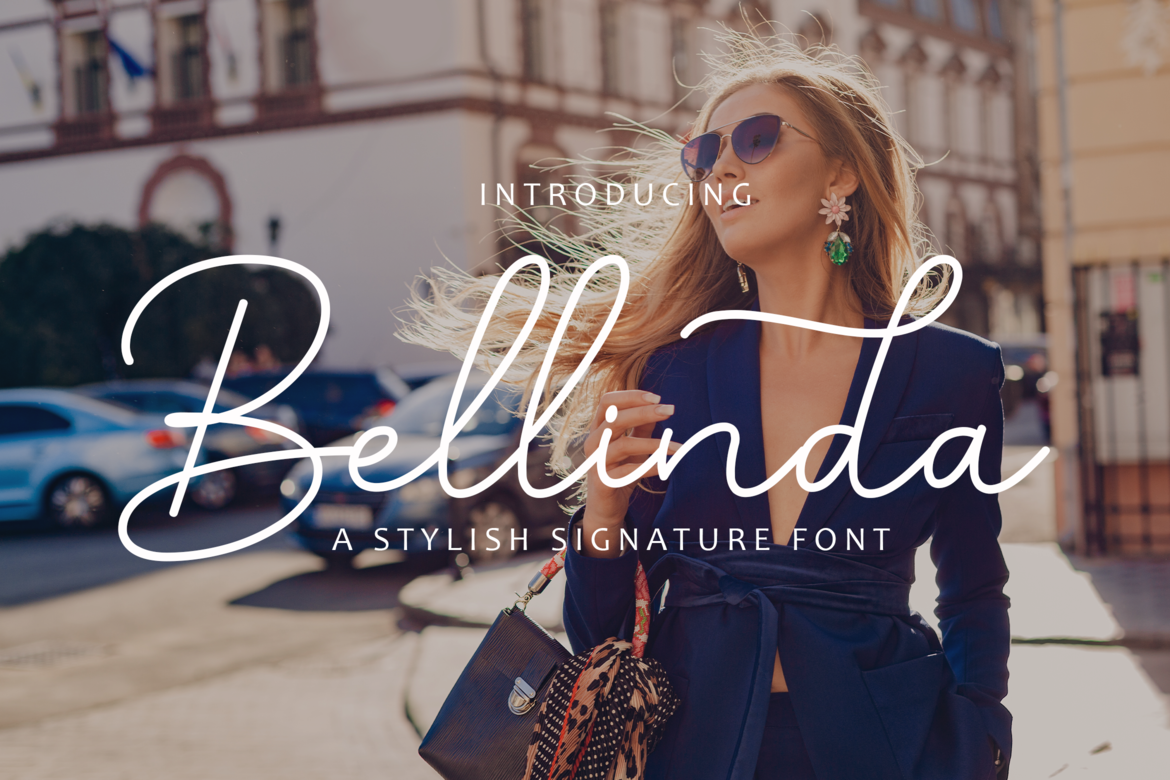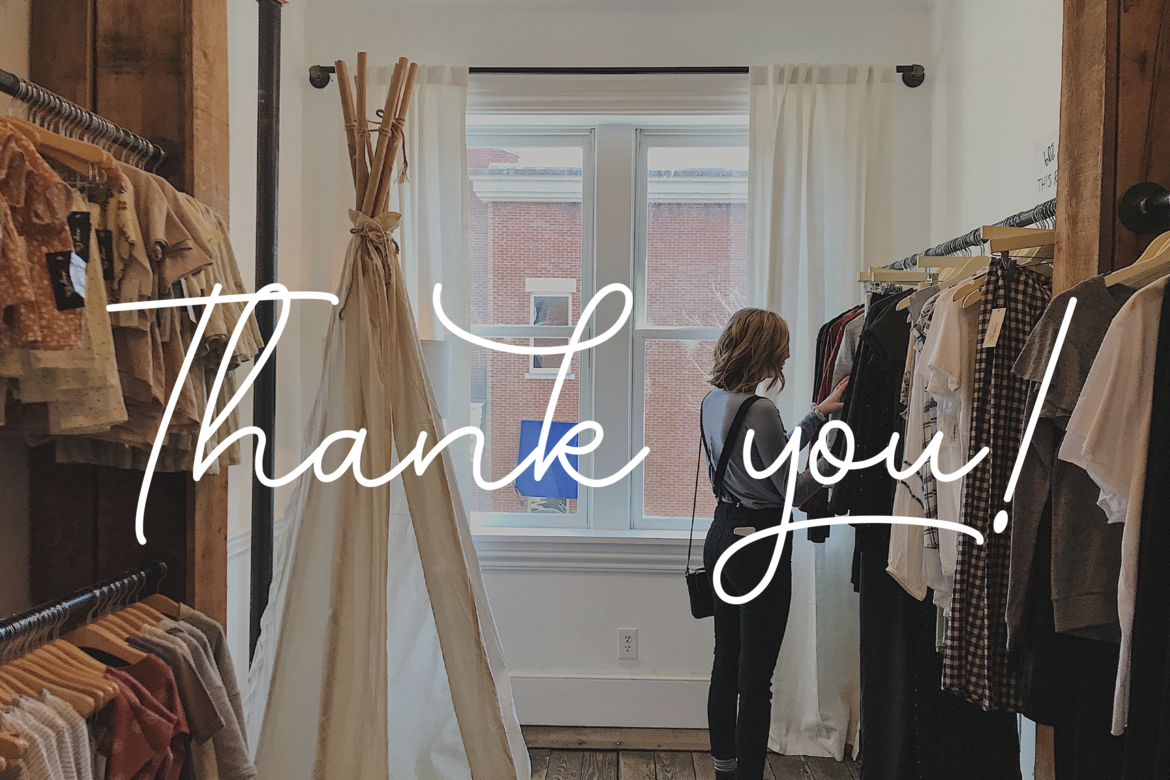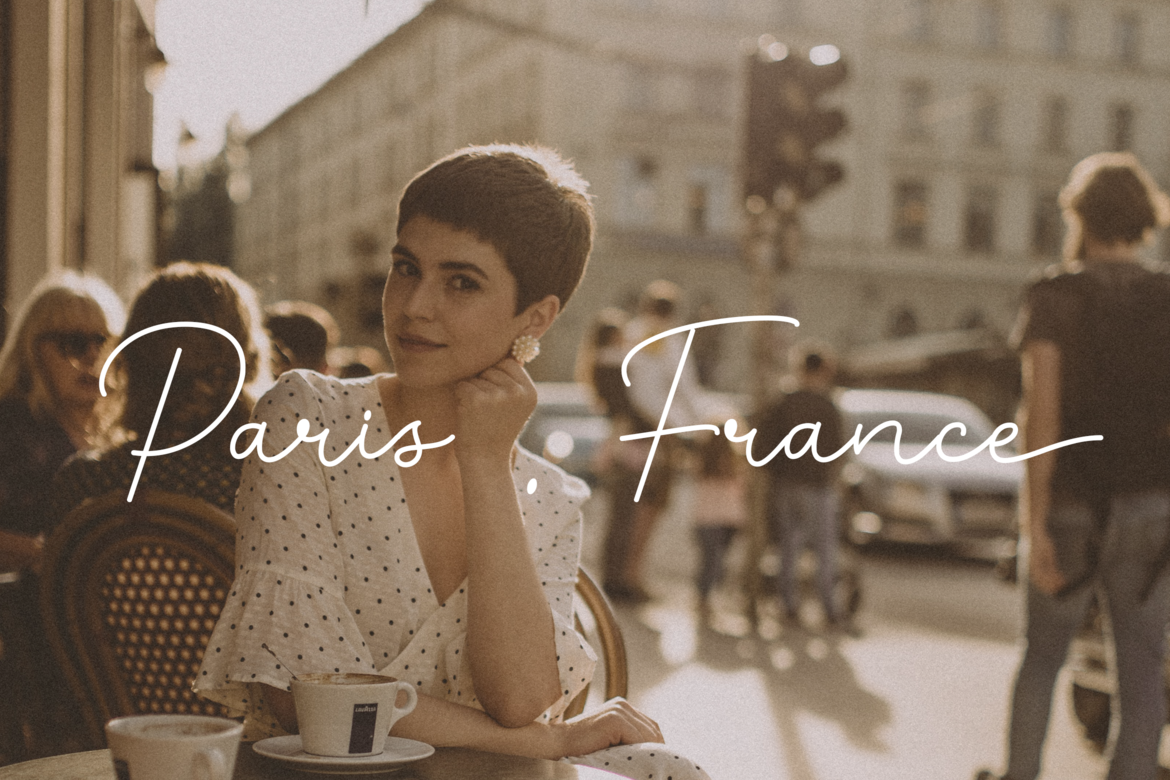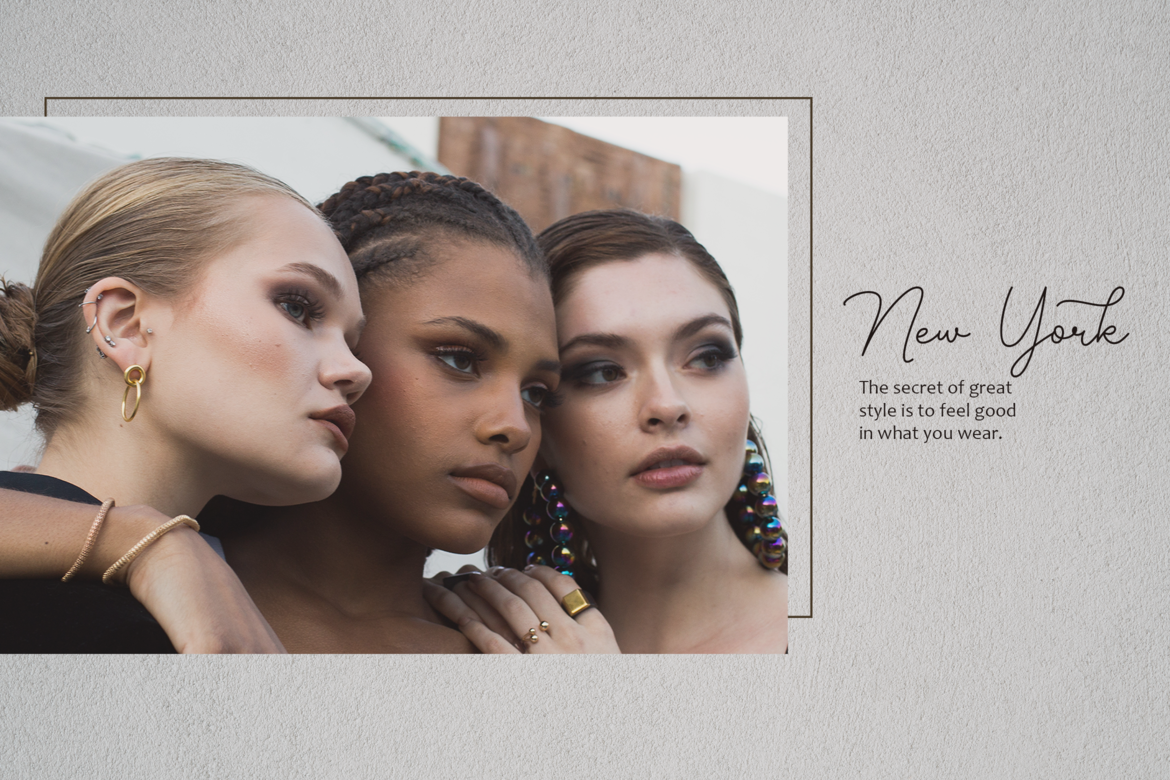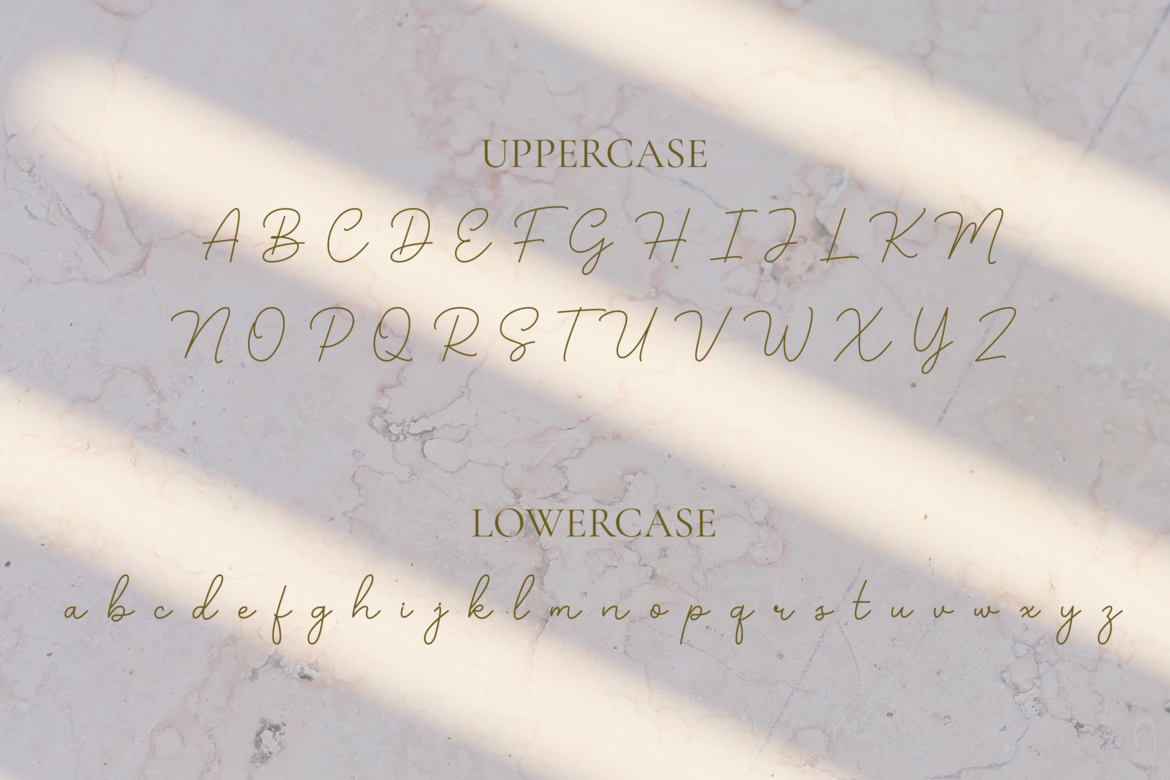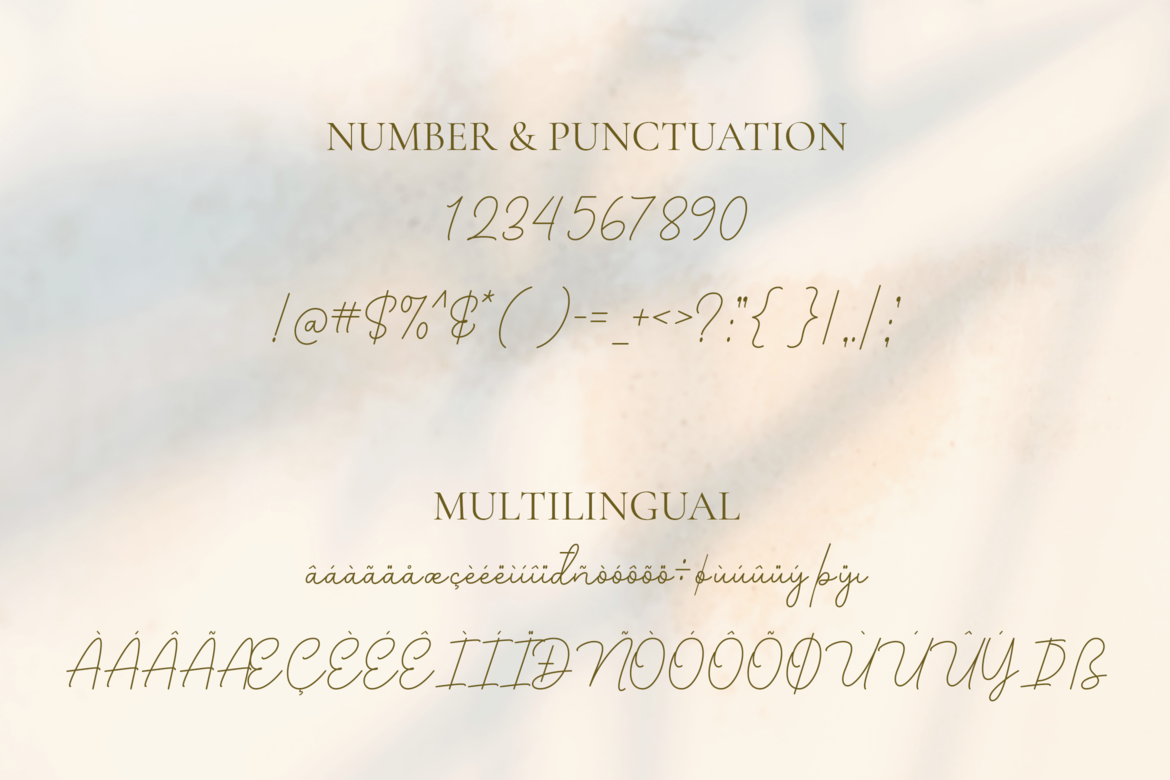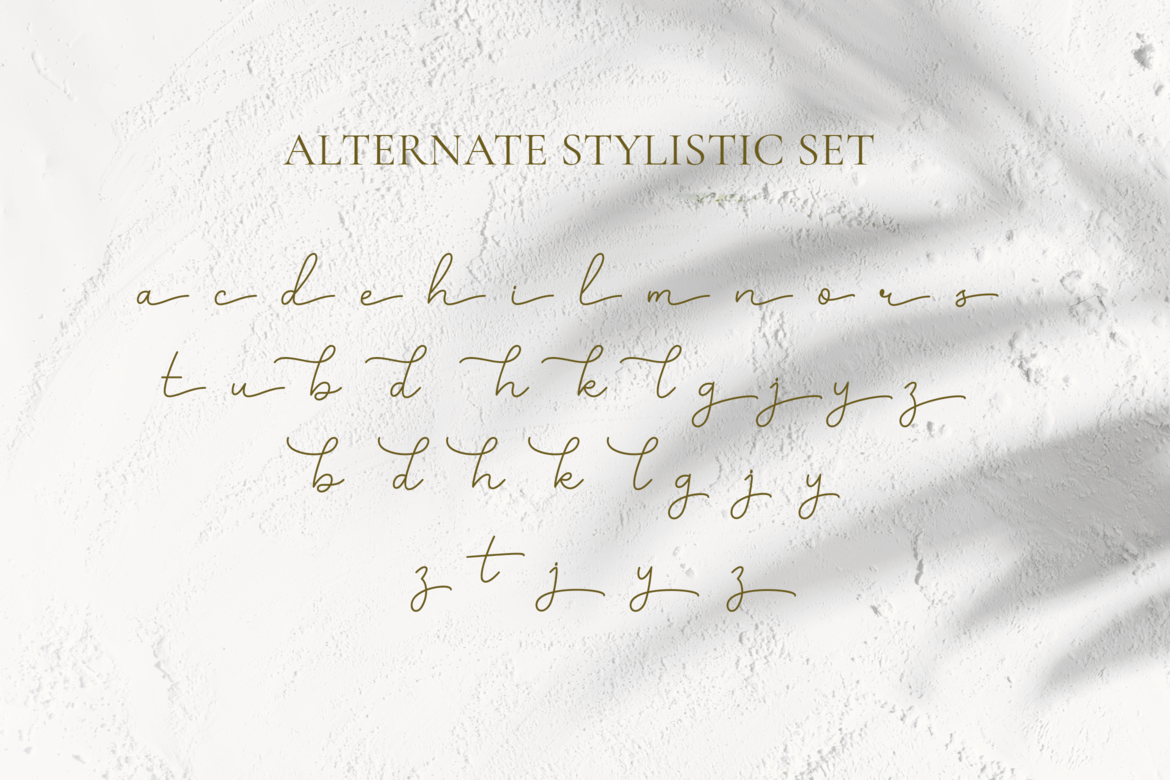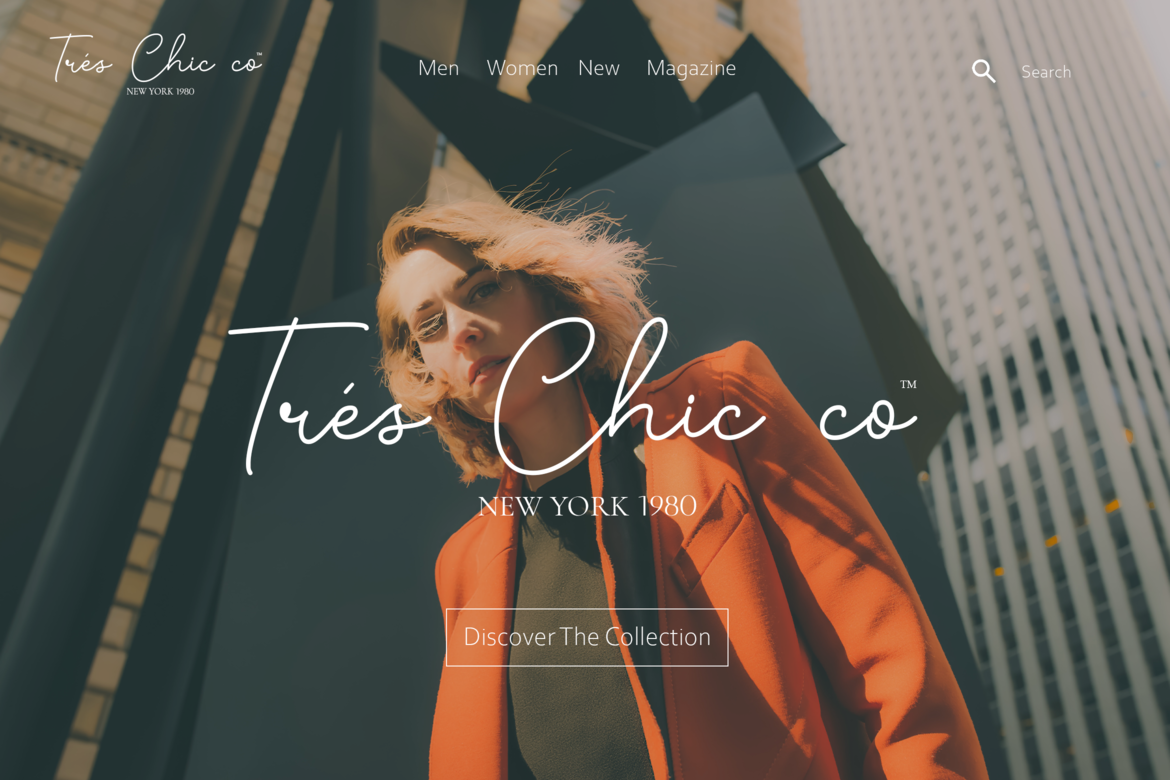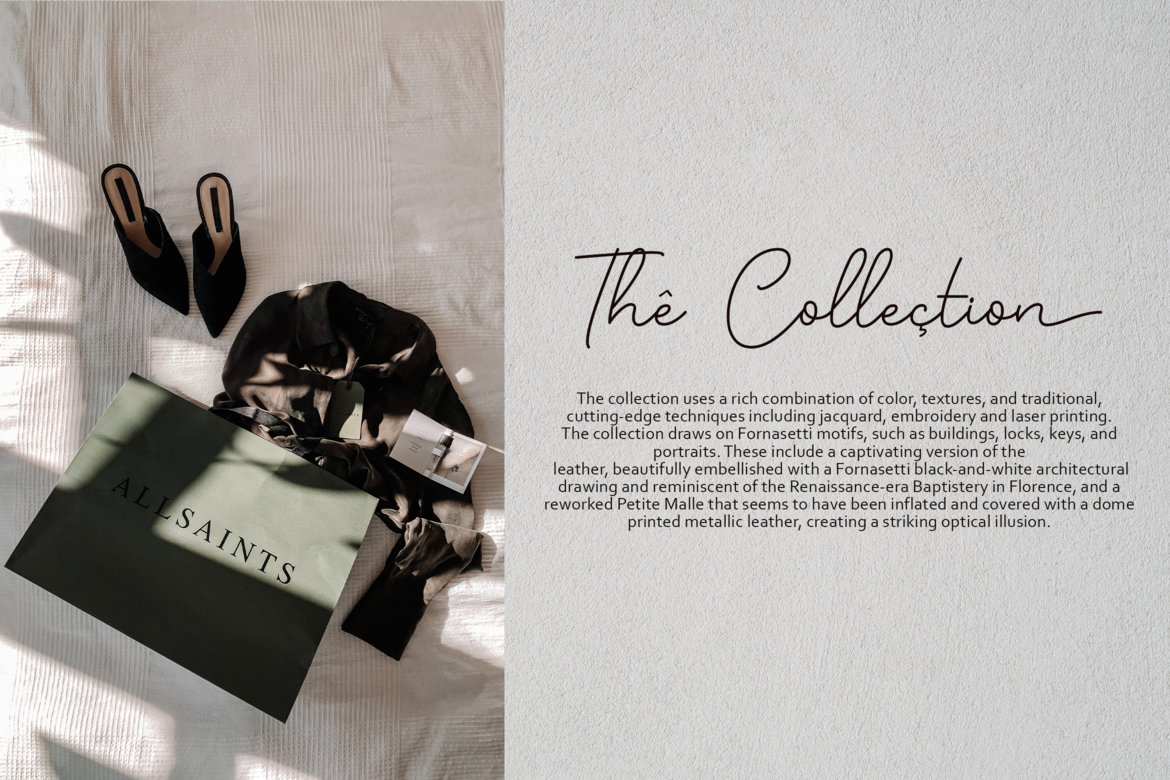
If you’re looking to shape your brand and need a great signature font, we’d like to help you stand out from the crowd.
Introducing Bellinda – A Stylish Signature Font.
Modern and tasteful, Bellinda is fantastic if you’re aiming for elegance. You can use this font for web pages, ads, promotions, banners, printed cards, clothing, merchandise, and anything else your business needs.
- Multilingual & Ligature Support
- Full sets of Punctuation and Numerals